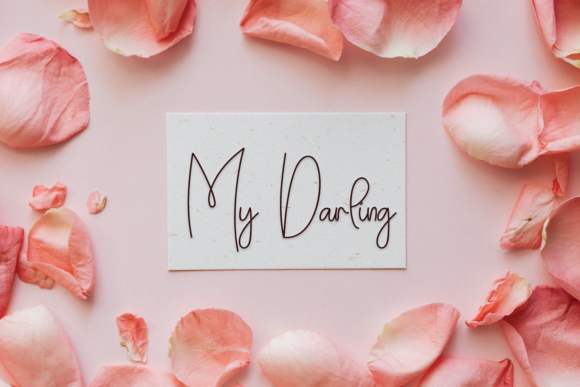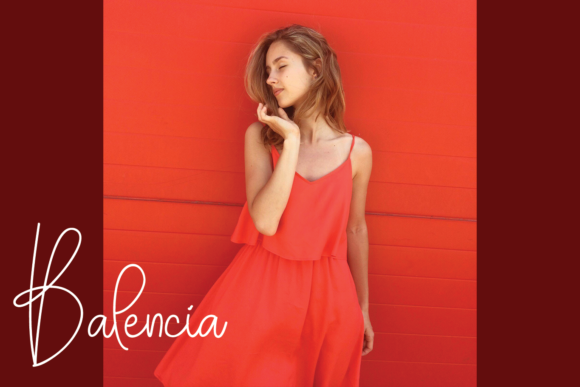
Rustic Font
db-ku.com - Script & Handwritten -- Rustic is a stylish and thin lettered handwritten font, masterfully designed to become a true favorite. It maintains its classy calligraphic influences while feeling contemporary and fresh.